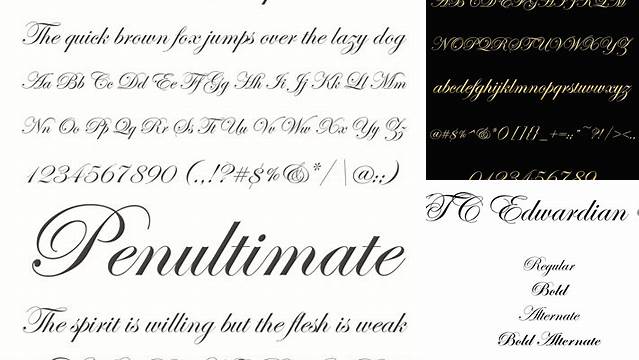
What is Edwardian Script ITC?
Edwardian Script ITC is a stunning typeface that captures the elegance and sophistication of the Edwardian era (early 1900s). Designed by Ed Benguiat in 1969, this font is characterized by its flowing lines, delicate strokes, and decorative swashes. It's like calligraphy, but in digital form! The Edwardian Script ITC font is meant to reflect the stylish writing and designs of the Edwardian Era, a period known for its elegance and intricate detailing in various forms of art and design. Its letterforms are gracefully rendered, making it perfect for projects that need a touch of sophistication and class. Think wedding invitations, certificates, and high-end branding materials. This font stands out with its decorative swashes and flowing connections between letters, which adds to its unique and elegant appearance. The fontâs design is heavily inspired by the luxurious and refined tastes of the Edwardian era, aiming to bring that same sense of opulence and style to contemporary design work. If you're aiming for that classical, refined feel, Edwardian Script ITC is an excellent choice. It's not just a font; it's a statement of elegance and timeless beauty, ideal for projects where you want to convey sophistication and charm. When using it, try to maximize the effect of its unique features like the swirling ascenders and descenders to truly capture the essence of early 20th-century design. For instance, using it in headers or logos can give a brand a memorable and sophisticated appeal. Choosing the right font is crucial for effective communication, and Edwardian Script ITC effortlessly bridges historical elegance with modern design needs.
Key Characteristics of Edwardian Script ITC
Edwardian Script ITC fonts boast several distinctive features that make them unique and highly sought after. Firstly, the flowing lines and connections between letters create a sense of fluidity and grace. This gives your text a handwritten feel, perfect for adding a personal touch. Secondly, the decorative swashes add a touch of elegance and flair. These are those extra flourishes you see on some letters, making the font look even more sophisticated. Then you also have the high contrast between thick and thin strokes. This contrast enhances the visual appeal and readability of the font. It makes each character distinct and eye-catching. Beyond aesthetics, Edwardian Script ITC also excels in versatility. It works well in a variety of design contexts, from formal invitations to branding materials. For example, you might see it used on wedding stationery, luxury product packaging, or even in the logo of a high-end boutique. The fontâs ability to adapt to different media, whether print or digital, makes it a favorite among designers. When using Edwardian Script ITC, consider the overall tone and style of your project. Its elegance pairs well with soft colors, classic layouts, and high-quality paper. Experiment with different sizes and weights to see how the font behaves in various contexts. Remember, a little goes a long way. Overusing decorative fonts can sometimes overwhelm your design, so use it judiciously to create the maximum impact. By understanding and leveraging these characteristics, you can create stunning designs that truly capture the essence of sophistication and timeless beauty. This is why designers often choose Edwardian Script ITC: it brings a unique blend of tradition and elegance to any project, ensuring your work stands out with a touch of class.
Using Edwardian Script ITC in Your Designs
So, you've got Edwardian Script ITC (or a close alternative) â now what? Let's talk about how to use this font effectively in your designs. First off, think about context. Edwardian Script ITC is all about elegance and sophistication, so it's perfect for projects where you want to convey a sense of luxury, tradition, or romance. Think wedding invitations, upscale branding, or vintage-inspired designs. However, it might not be the best choice for something like a tech startup's website (unless they're going for a very specific, ironic vibe). Then you need to think about legibility. While Edwardian Script ITC is beautiful, it can be a bit tricky to read in large blocks of text. It's best used for headings, titles, and short phrases where the decorative elements can really shine. Avoid using it for body text or anything that needs to be read quickly and easily. Also, remember that pairing is key. Edwardian Script ITC works best when paired with a simple, clean sans-serif or serif font. This contrast helps to balance the elegance of the script with the readability of the body text. Some popular pairings include Edwardian Script ITC with Arial, Helvetica, or Times New Roman. It depends on your overall look and feel. Another tip is to use the font sparingly. Too much Edwardian Script ITC can be overwhelming and make your design look cluttered. Use it strategically to highlight key elements and add a touch of flair, but don't overdo it. And don't be afraid to experiment. Try different sizes, colors, and placements to see what works best for your project. Play around with the kerning (the space between letters) and the leading (the space between lines) to fine-tune the look and feel of the font. With a little creativity and attention to detail, you can use Edwardian Script ITC to create stunning designs that truly capture the essence of elegance and sophistication. Always consider who your audience is and the message you are trying to convey.
Alternatives to Edwardian Script ITC
Okay, so maybe you're having trouble finding a free (and legal) download of Edwardian Script ITC, or perhaps it's just not quite the right fit for your project. No worries, guys, there are plenty of other elegant script fonts out there to choose from! Here are a few alternatives that capture a similar vibe: First, you have Great Vibes. This is a beautiful, flowing script font that's perfect for wedding invitations and other formal designs. It's available for free on Google Fonts, making it a great option if you're on a budget. Then there is Allura. Another elegant script font with a slightly more modern feel than Edwardian Script ITC. It's a good choice for branding projects and other designs where you want to convey a sense of sophistication. Another great option is * āĻļāĻŋāĻā§āĻāĻŋ Script*. This is a delicate, handwritten-style font that's perfect for adding a personal touch to your designs. It's a good choice for stationery, thank you cards, and other heartfelt projects. Also, check out āύā§āĻĻāĻŋāύ⧠Script. A bold, dramatic script font that's perfect for making a statement. It's a good choice for headlines, logos, and other designs where you want to grab attention. Finally, consider āĻšāϞā§āĻĻ Script. A playful, whimsical script font that's perfect for adding a touch of fun to your designs. It's a good choice for children's books, party invitations, and other lighthearted projects. When choosing a script font, it's important to consider the overall tone and style of your project. Think about the message you're trying to convey and the audience you're trying to reach. With a little research and experimentation, you're sure to find the perfect script font for your needs. Remember to always check the license agreement before using a font, especially if you're using it for commercial purposes. Some fonts are free for personal use only, while others require a commercial license. So, do your due diligence and make sure you're using the font legally. By considering these alternatives, you can achieve the elegant aesthetic you're aiming for, even if Edwardian Script ITC isn't readily available.
So, there you have it, guys! A comprehensive guide to Edwardian Script ITC fonts. While finding a truly free and legal download can be challenging, understanding the font's characteristics, exploring alternatives, and using it effectively in your designs can help you achieve that elegant, sophisticated look you're after. Happy designing!